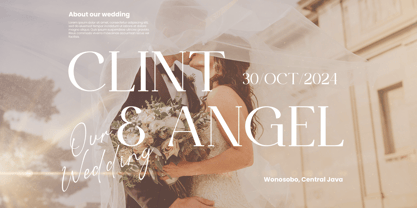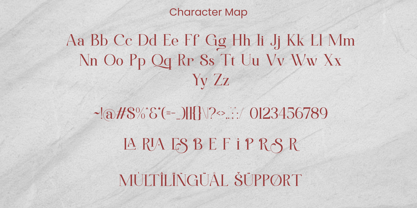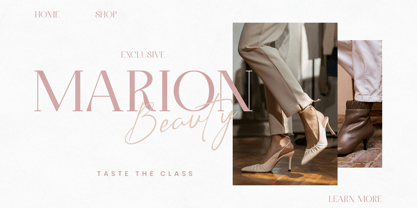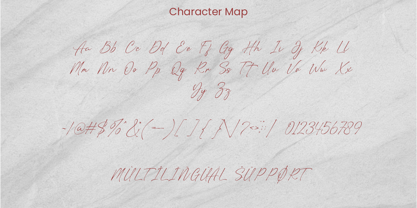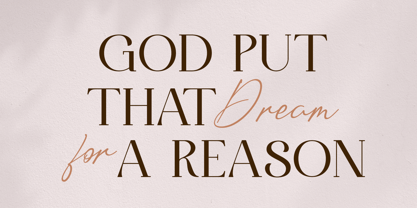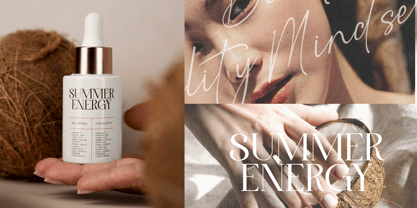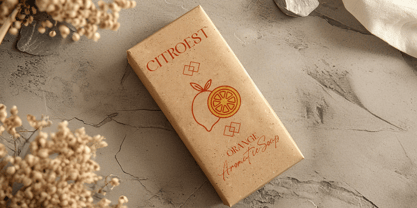
Eilaria
by Slide Shoot
The Eilaria Font Family was designed by Ahmad Riqi and published by Slide Shoot. Eilaria contains 2 styles and family package options. More about this family
Eilaria is a classy duo font that includes modern serifs and scripts, which are perfect for using together in your designs. Can be used for titles, logos, brands, magazines, product packaging and invitations. Its elegant, stylish, classy, ​​graceful and modern touch with clean lines and smooth curves gives an extra touch of class to any project. Making this font the perfect partner for any project.
Designers: Ahmad Riqi
Foundry: Slide Shoot